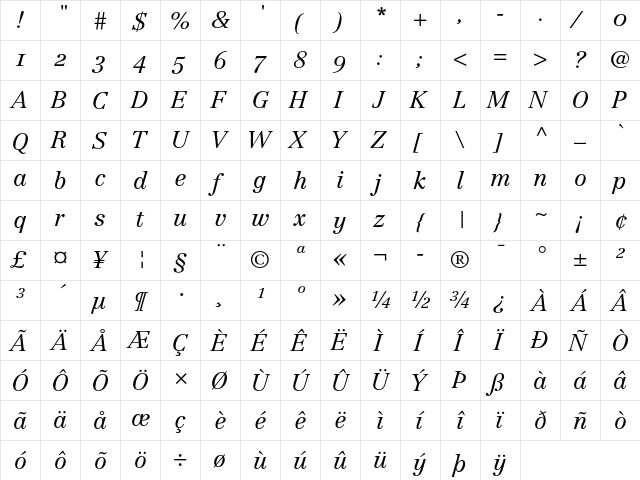
Centennial 46 Light Italic OsF
Design Context for Centennial Typeface
Centennial offers clean, dependable letterforms without strong stylistic allegiance, making it a practical choice for designers who need flexibility. Its italic angle brings a sense of urgency and motion to the letterforms. Its slender proportions lend an understated elegance to any composition.
Pro Tip: Use Centennial for emphasis, pull quotes, and subheadings where its slanted energy can add rhythm to the layout.